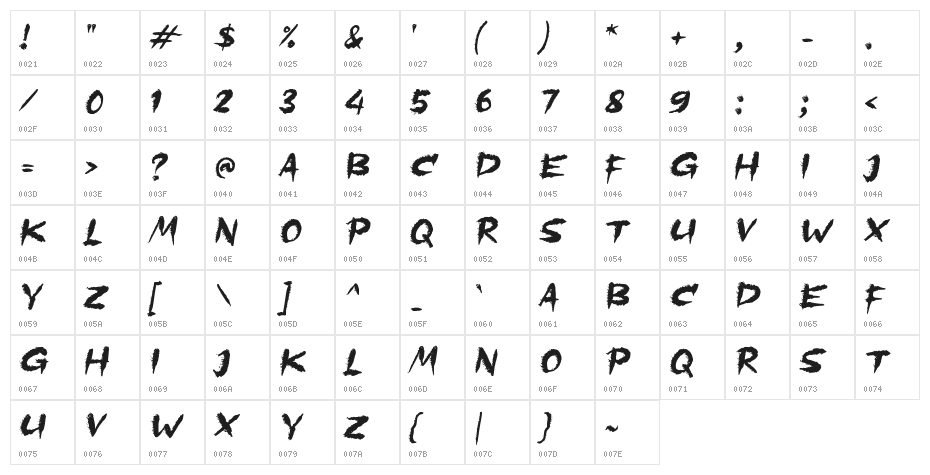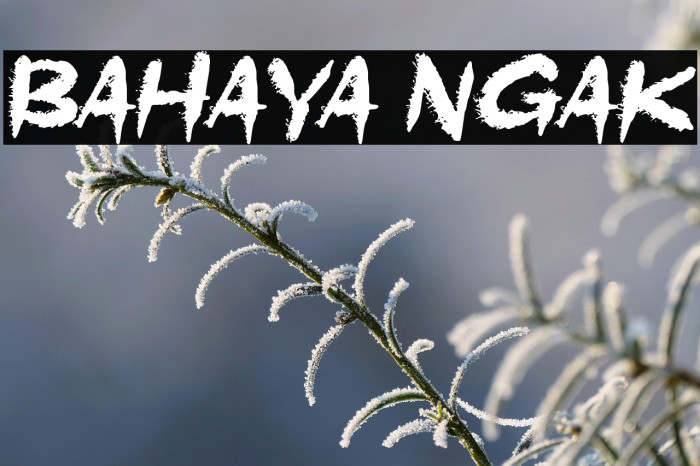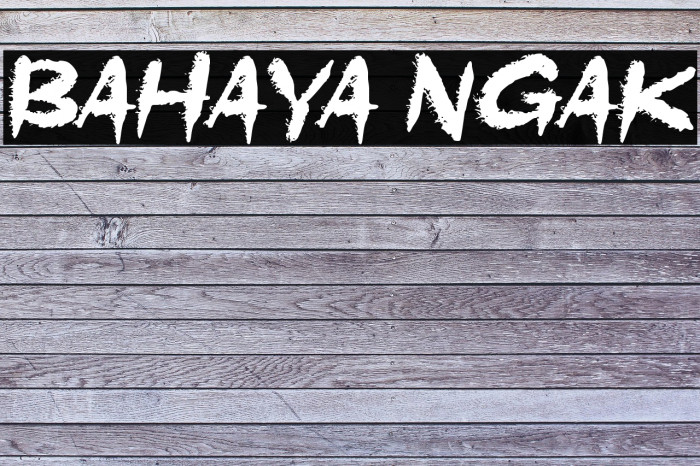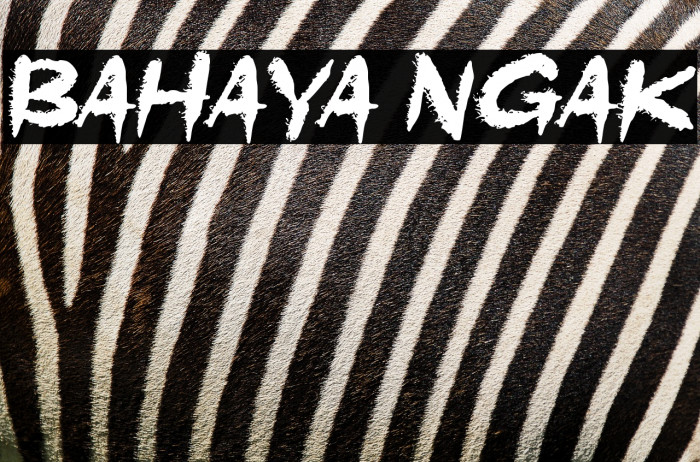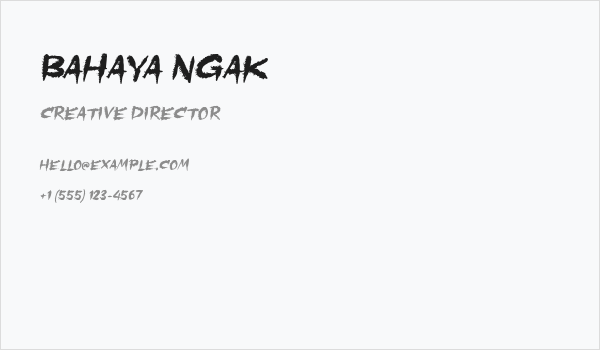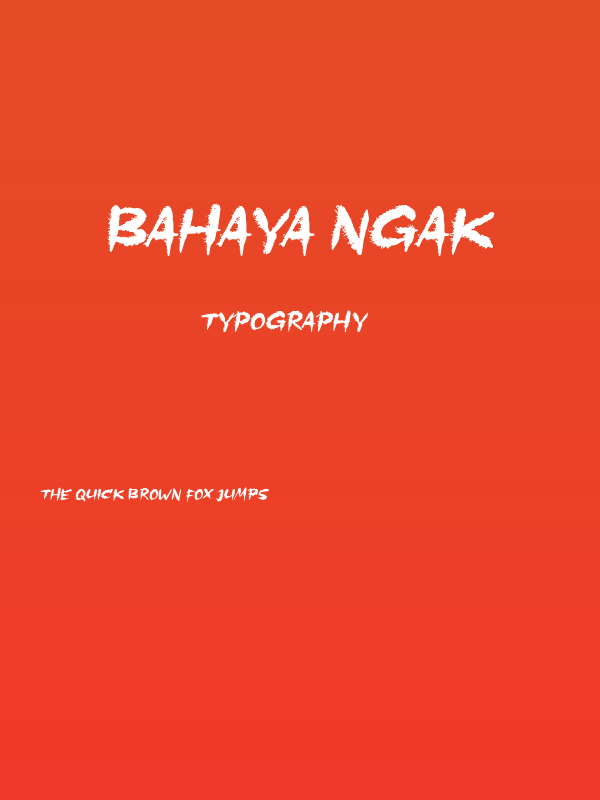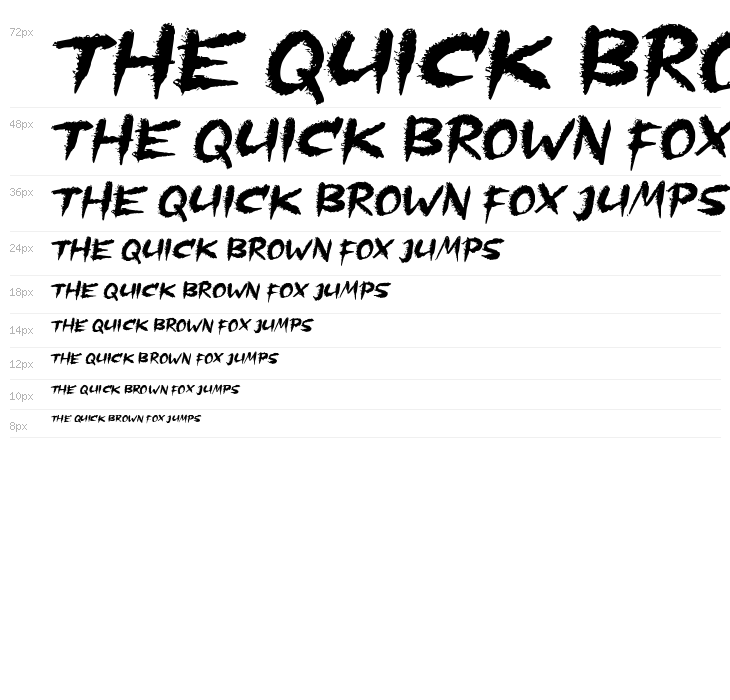
Bahaya Ngak Font
Bahaya Ngak Description
This font features a bold and dynamic brush style, characterized by its rough, textured strokes that give it an energetic and edgy appearance. The letters are slightly slanted, adding a sense of movement and urgency. The uppercase and lowercase characters maintain a consistent style, with a natural, hand-drawn look. The numerals and special characters follow the same aesthetic, ensuring a cohesive design throughout. This font's unique texture and bold presence make it stand out, ideal for projects that require a strong visual impact.